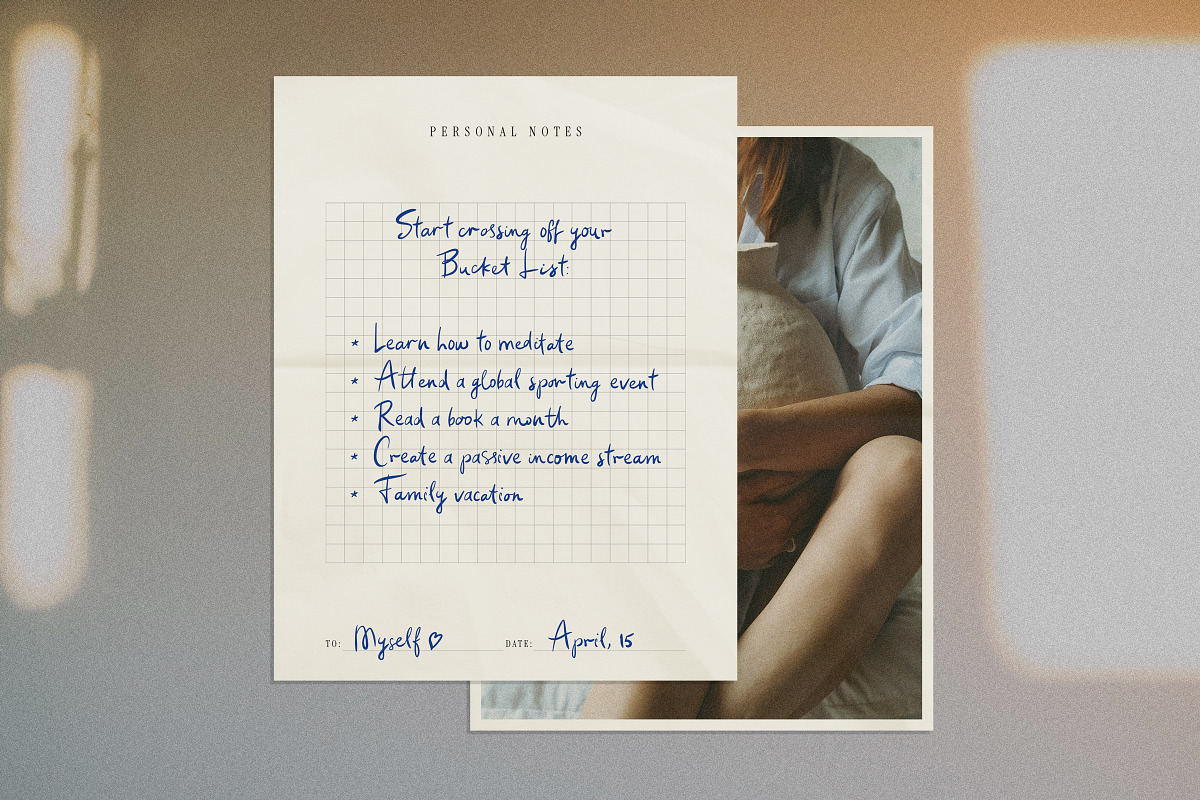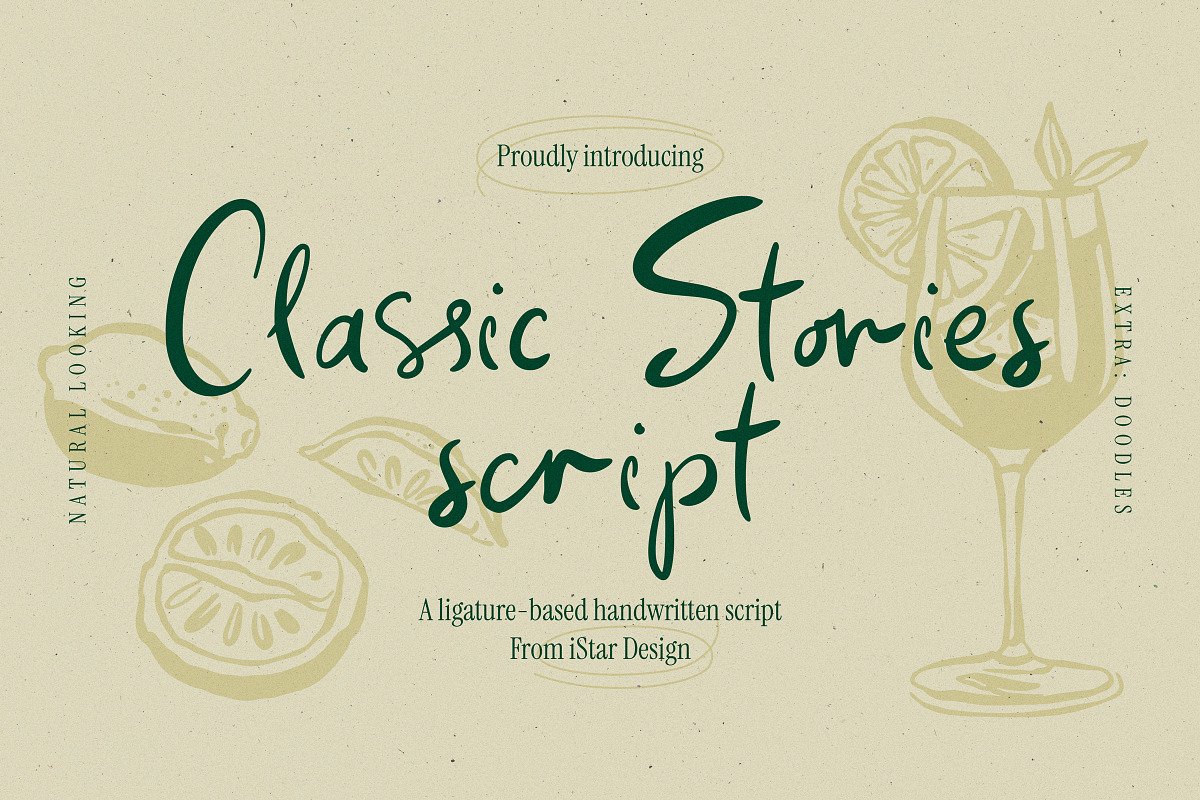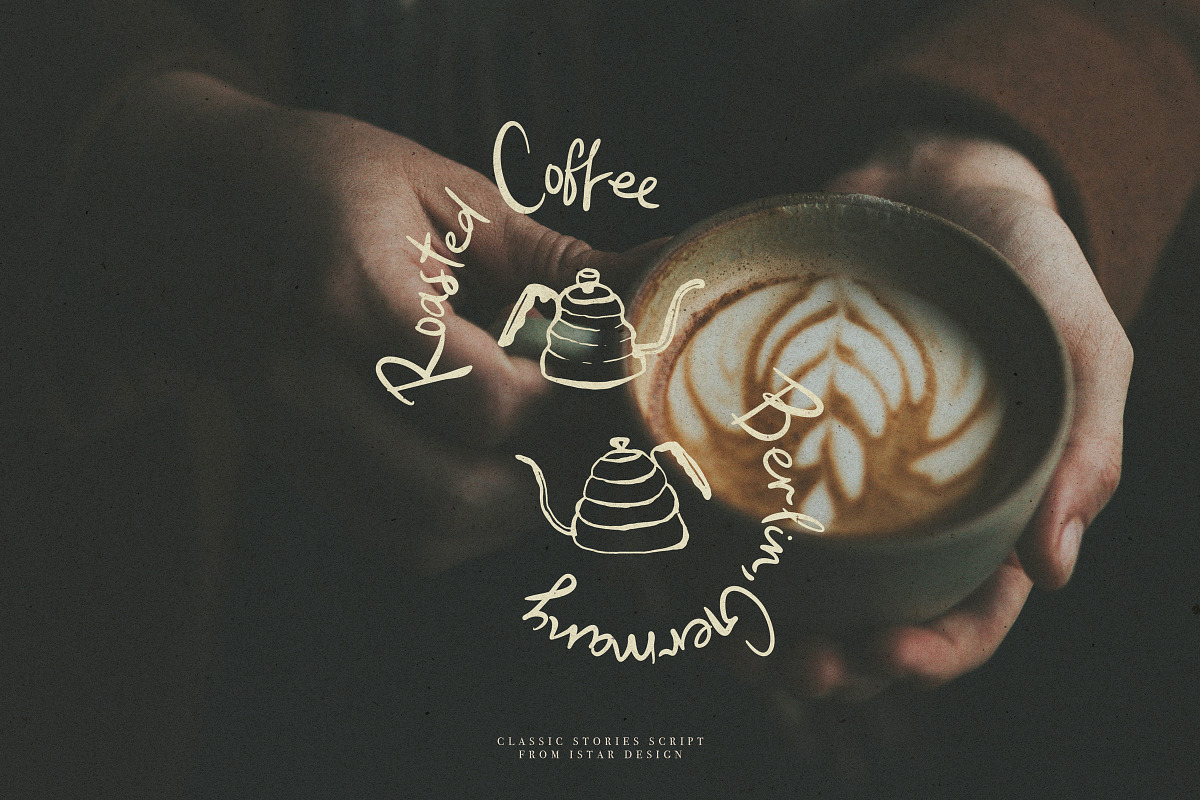
Classic Stories Script + Doodles
Classic Stories Script is designed to add natural looking handwritten touch to your projects. With seamless opentype ligatures, each letter flows beautifully, creating an authentic, cohesive look. Ideal for social media, professional presentations, or any creative endeavor that calls for a personal touch. Extra: Doodles.